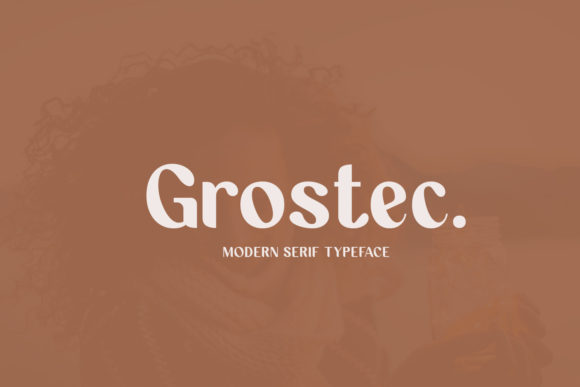
Unleash your creativity and step into the realm of captivating typography with Grostec, the remarkable display font designed to make your words dance off the screen. This font is crafted to add a touch of uniqueness and personality to your web designs, business cards, and any project that demands an unconventional flair.
With its playful and vibrant curves, Grostec has the power to transform ordinary text into captivating headlines, eye-catching logos, and unforgettable invitations. Let your imagination soar as you explore the endless possibilities of this font, designed to make your designs shine brighter than ever before.
Grostec's meticulously crafted characters possess an inherent charm that will leave a lasting impression on your audience. Each letterform is meticulously designed to strike a harmonious balance between elegance and playfulness, giving your designs a touch of sophistication while maintaining a sense of approachability.
But what truly sets Grostec apart is its versatility. Whether you're looking to create a visually stunning website, design a business card that leaves a lasting impression, or craft social media posts that demand attention, Grostec has got you covered. Its diverse range of applications makes it the perfect choice for designers, marketers, and creatives alike.
So, embark on a typographic adventure with Grostec, the font that will elevate your designs to new heights. Let your creativity flow freely as you discover the boundless potential of this extraordinary font, transforming your words into works of art and leaving your audience spellbound.